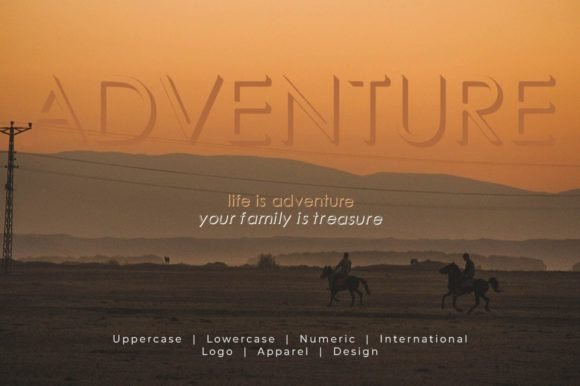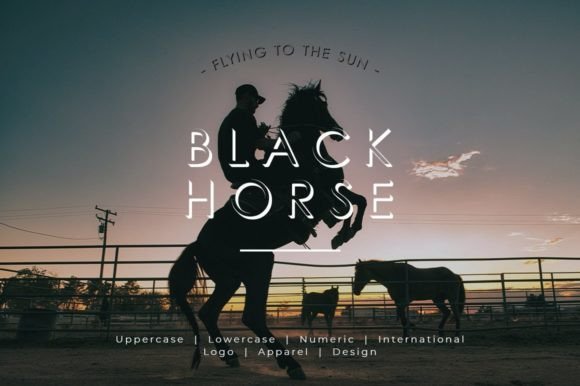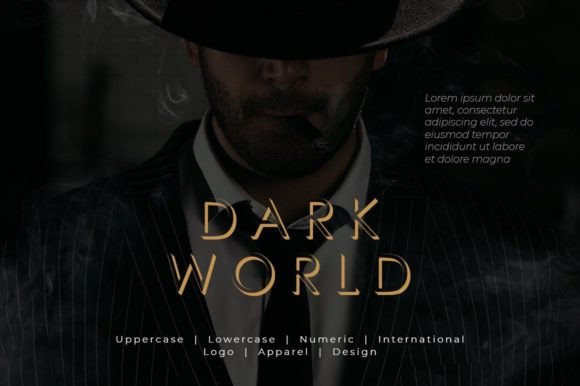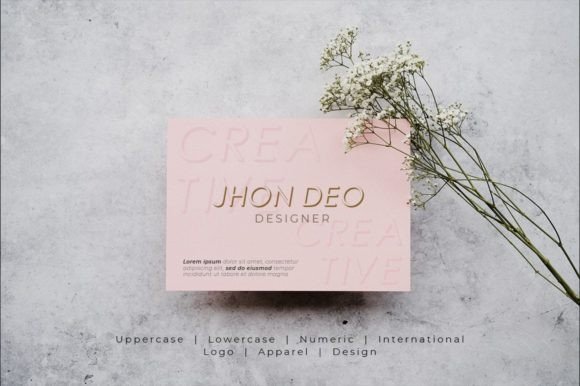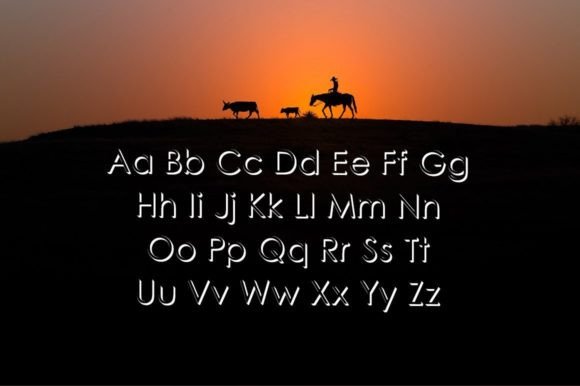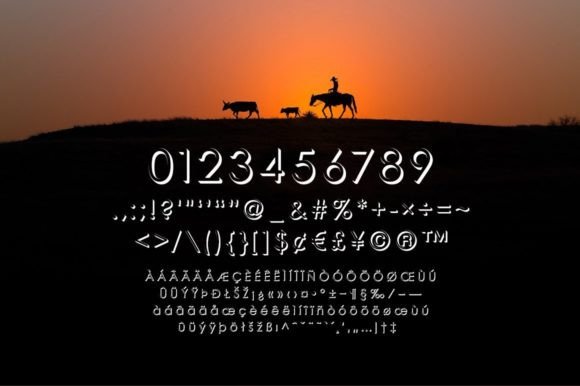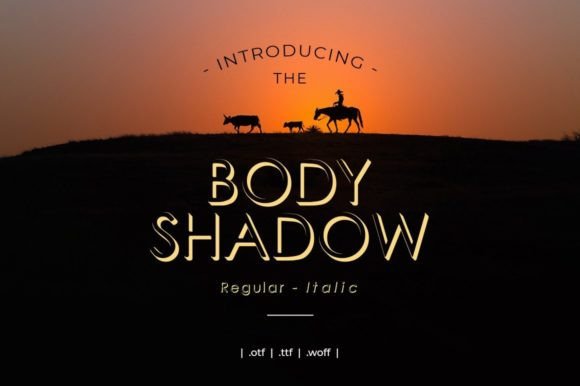
Bodyshadow Font: Elevate Your Designs with a Unique Display Font
In the world of typography, a good font can make all the difference in creating a stunning design. If you’re a designer or crafter looking for a unique and interesting display font, look no further than Bodyshadow. This font is an incredible asset to any font library, with the potential to elevate any creation, regardless of the topic or theme. In this article, we’ll explore the features and benefits of Bodyshadow Font and why it’s a must-have for designers and crafters.
What is Bodyshadow Font?
Bodyshadow Font is a display font that stands out from the crowd with its distinctive design. The font features a bold and eye-catching style, with a subtle shadow effect that gives it a sense of depth and dimensionality. The result is a font that’s both modern and edgy, perfect for making a statement in any design.
Key Features of Bodyshadow Font
So, what makes Bodyshadow Font so special? Here are some of its key features:
- Unique Design: Bodyshadow Font boasts a one-of-a-kind design that’s sure to grab attention. Its bold and edgy style makes it perfect for headlines, titles, and other display text.
- Subtle Shadow Effect: The subtle shadow effect gives the font a sense of depth and dimensionality, making it stand out from other display fonts.
- Versatile: Despite its bold design, Bodyshadow Font is surprisingly versatile and can be used in a wide range of design projects, from posters and flyers to logos and branding.
- Easy to Read: Despite its bold style, Bodyshadow Font is easy to read, even at smaller sizes, making it perfect for use in a variety of design applications.
Benefits of Using Bodyshadow Font
So, why should you choose Bodyshadow Font for your design projects? Here are some of the benefits of using this unique display font:
- Adds Visual Interest: Bodyshadow Font adds a touch of visual interest to any design, making it perfect for headlines, titles, and other display text.
- Elevates Your Brand: With its bold and edgy design, Bodyshadow Font can help elevate your brand and make it stand out from the competition.
- Versatile: Bodyshadow Font can be used in a wide range of design projects, from print to digital, making it a great addition to any font library.
- Time-Saving: With Bodyshadow Font, you can create stunning designs in no time, saving you time and effort in the design process.
How to Use Bodyshadow Font
Using Bodyshadow Font is easy! Here are some tips on how to get the most out of this unique display font:
- Use it as a Headline Font: Bodyshadow Font is perfect for use as a headline font, adding a touch of visual interest to any design.
- Pair it with Other Fonts: Bodyshadow Font can be paired with other fonts to create a unique and interesting design.
- Experiment with Colors: Bodyshadow Font looks great in a variety of colors, so don’t be afraid to experiment and find the perfect color scheme for your design.
In conclusion, Bodyshadow Font is a unique and interesting display font that’s perfect for designers and crafters looking to elevate their designs. With its bold and edgy design, subtle shadow effect, and versatility, Bodyshadow Font is an incredible asset to any font library. Whether you’re creating a poster, flyer, logo, or branding, Bodyshadow Font is sure to make a statement. So why not give it a try and see the difference it can make in your designs?